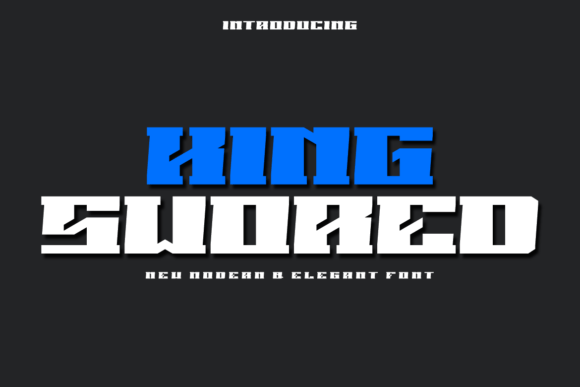
Welcome to the realm of typography, where King Swored Font reigns supreme as the ultimate font for all your captivating business letter endeavors! Crafted with precision and artistry by the renowned cozzdesign0, this display font exudes unwavering boldness and assertiveness that will elevate your written communications to unparalleled heights.
King Swored Font is not merely a collection of characters; it's an expression of confidence, power, and determination. Its chunky letters command attention, demanding to be noticed and leaving an unforgettable impression on all who behold them. With each stroke, King Swored Font conveys a sense of authority that will bolster your business letters, making them stand out from the crowd and resonate with your audience on a profound level.
But it's not just about aesthetics; King Swored Font is also a master of functionality. Its clear and legible design ensures that your messages are delivered with crystal clarity, ensuring that your words have the impact they deserve. Whether you're crafting formal letters, persuasive proposals, or any other type of business correspondence, King Swored Font will be your trusted ally, empowering you to communicate with confidence and achieve your desired outcomes.